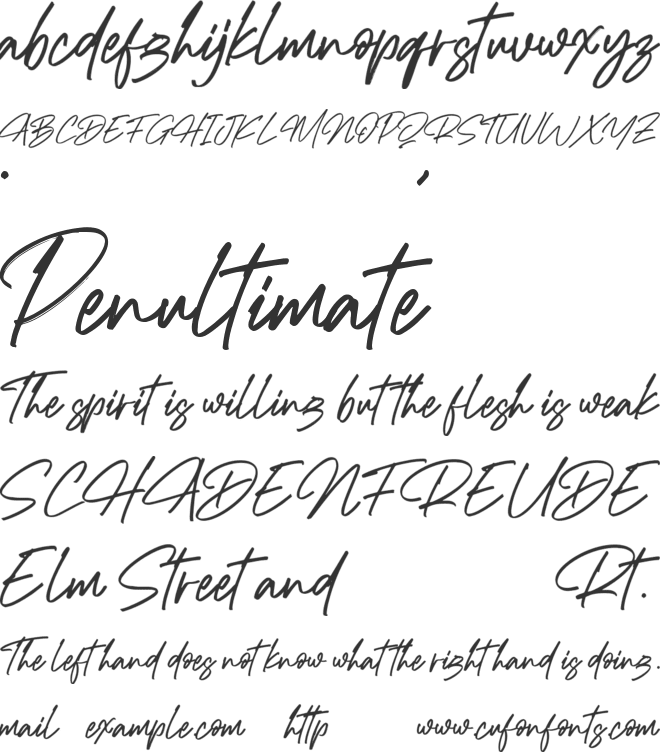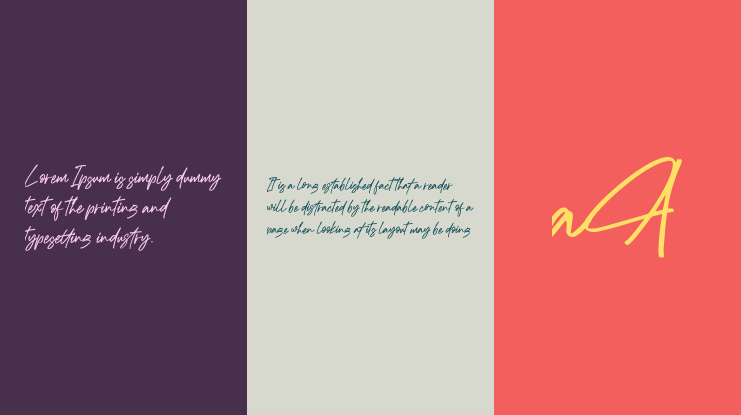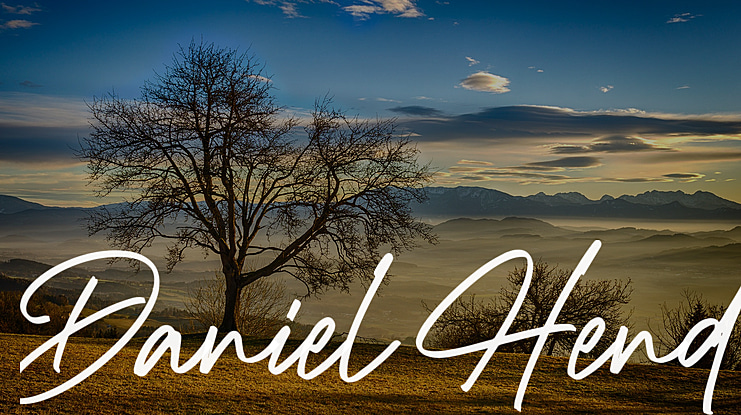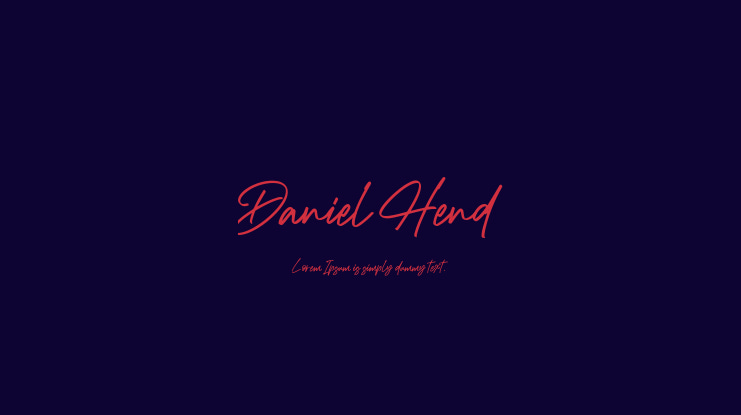
Daniel Hend Font
Daniel Hend Handwritten Font is a monoline handwritten typeface. Daniel Hend is perfect for product packaging, branding project, magazines, social media, weddings, or just used to express words above the background.
– Uppercase, Lowercase, Numeral & Punctuation
– Alternate Letters, Ligature & Swash/Tail